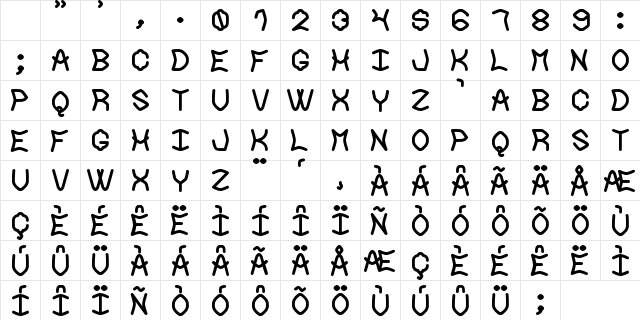
Complete The Neckbreaker St Regular glyph index. Displaying only characters natively supported by The Neckbreaker St Regular font.
The Neckbreaker St is a composed and adaptable typeface that performs quietly and consistently across a wide range of design contexts.